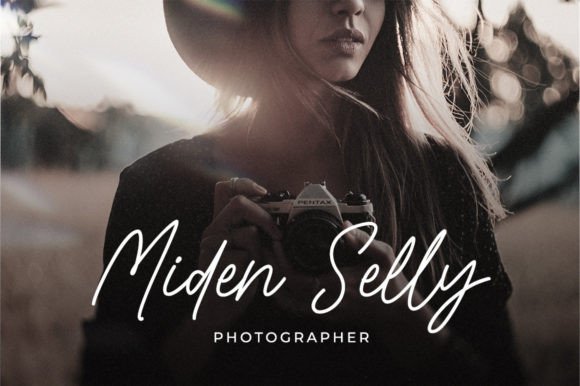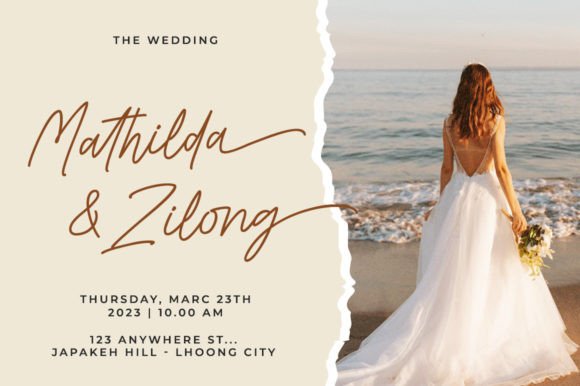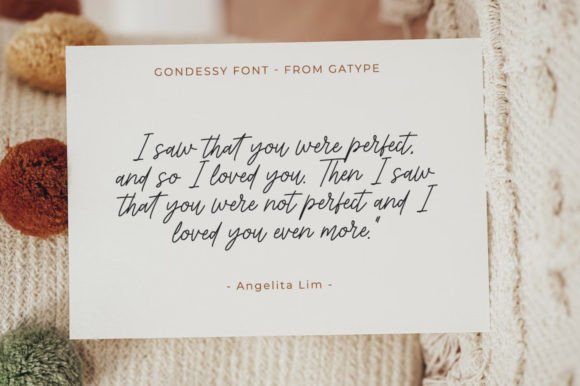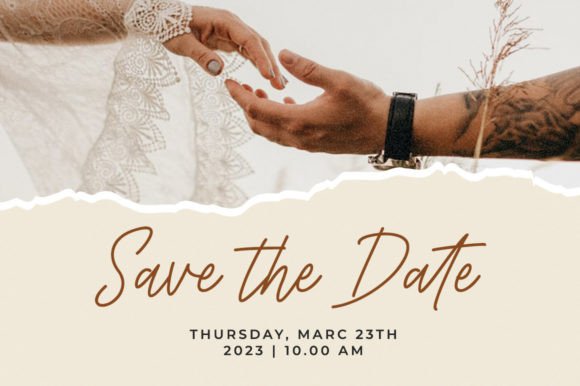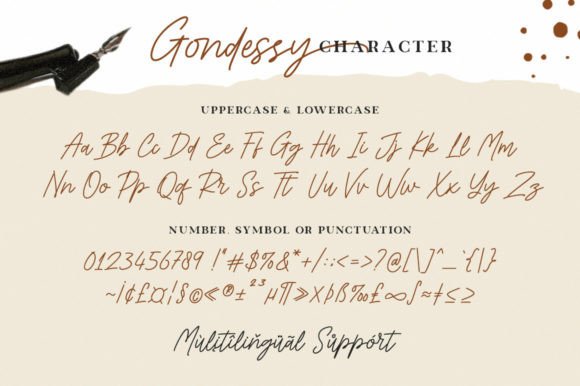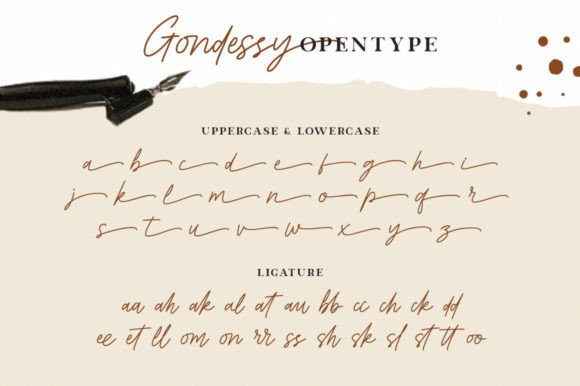
Gondessy Font: Elevate Your Design with Luxury and Elegance
Are you looking for a font that can add a touch of luxury and sophistication to your design projects? Look no further than the Gondessy Font. This beautiful and light handwritten font is designed to make a stunning impact, setting your creations apart from the rest. With its unique feel and elegant style, Gondessy is the perfect choice for designers and crafters who want to add a touch of high-end quality to their work.
The Unique Features of Gondessy Font
Gondessy Font is a one-of-a-kind typeface that boasts a range of unique features that make it stand out from other fonts. Its light and airy feel gives it a sense of elegance and sophistication, while its handwritten style adds a touch of warmth and personality. The font’s unique feel is achieved through its carefully crafted letterforms, which are designed to flow seamlessly together to create a beautiful and cohesive look.
The Benefits of Using Gondessy Font
So why should you choose Gondessy Font for your design projects? Here are just a few benefits of using this stunning font:
- Adds a touch of luxury: Gondessy Font is designed to add a touch of high-end quality to your designs, making it perfect for projects where you want to convey a sense of sophistication and elegance.
- Unique and eye-catching: With its unique feel and handwritten style, Gondessy Font is sure to grab attention and set your designs apart from the rest.
- Versatile: Gondessy Font is a versatile typeface that can be used in a wide range of design projects, from branding and packaging to wedding invitations and more.
- Easy to read: Despite its elegant and refined style, Gondessy Font is still easy to read, making it perfect for use in both digital and print designs.
How to Use Gondessy Font in Your Design Projects
Using Gondessy Font in your design projects is easy. Here are a few tips to get you started:
- Pair it with bold fonts: For a striking contrast, pair Gondessy Font with bold and modern fonts to create a visually appealing combination.
- Use it for headings and titles: Gondessy Font is perfect for use in headings and titles, where its elegant and refined style can really shine.
- Add it to your branding: Use Gondessy Font to add a touch of luxury and sophistication to your branding, including business cards, letterheads, and more.
Who Can Benefit from Using Gondessy Font?
Gondessy Font is a versatile typeface that can be used by a wide range of designers and crafters, including:
- Graphic designers: Gondessy Font is perfect for graphic designers who want to add a touch of luxury and sophistication to their designs.
- Wedding planners and stationery designers: With its elegant and refined style, Gondessy Font is a great choice for wedding planners and stationery designers who want to create beautiful and memorable invitations and stationery.
- Crafters and DIY enthusiasts: Gondessy Font is also a great choice for crafters and DIY enthusiasts who want to add a touch of elegance and sophistication to their handmade projects.
In conclusion, Gondessy Font is a beautiful and light handwritten font that is sure to add a touch of luxury and sophistication to any design project. With its unique feel and elegant style, Gondessy is the perfect choice for designers and crafters who want to create stunning and memorable designs. Whether you’re a graphic designer, wedding planner, or crafter, Gondessy Font is a versatile typeface that is sure to elevate your designs to the next level.